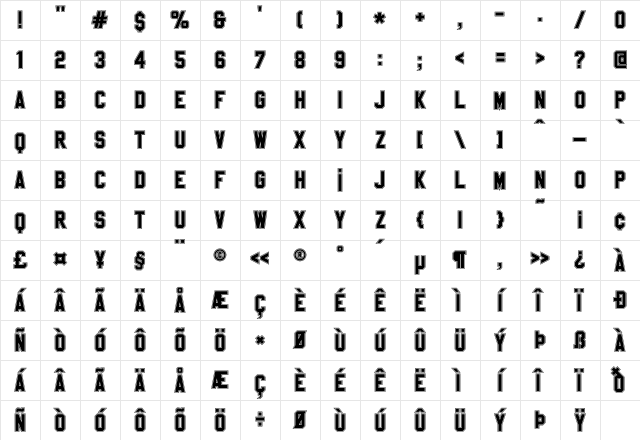
Sablon Up College
Style: College
Foundry: Youssef Habchi
Design Context for Sablon Up
Sablon Up brings high-energy athletic personality to the page - its confident, muscular forms are built for impact.
Who designed the Sablon Up College font?